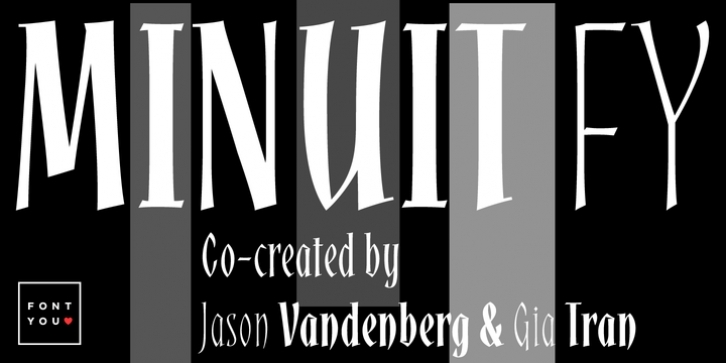
Minuit FY is a new script font inspired by medieval calligraphic elements.
The very condensed forms have short ascenders, which affords a high x-height.
Comes out in three weights from light to bold, Midnight will certainly bring pleasure to all gothic, medieval and halloween fanatics :)
Minuit FY was co-created by Jason Vandenberg & Gia Tran on fontyou.com, the first collaborative type foundry.